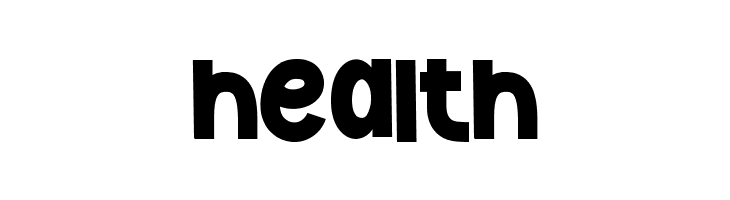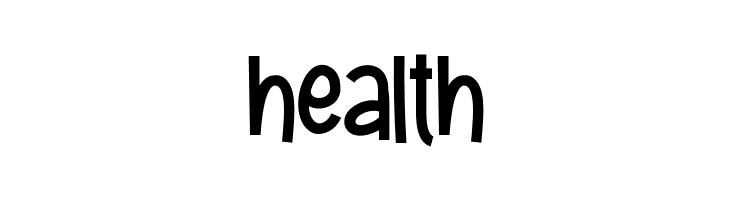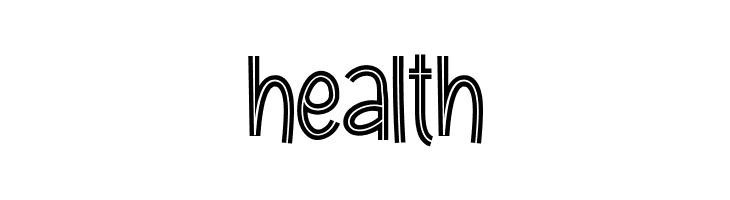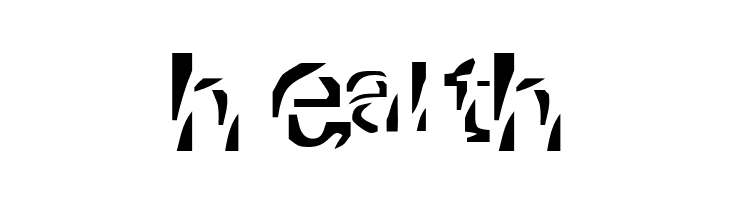
A whimsical and ornate font with curly, decorative letterforms.
A playful, bold font with rounded, bubble-like characters.
A playful and bold font with rounded edges and uniform strokes.
A playful and decorative font with whimsical patterns and textures.
A playful, hand-drawn font with bold strokes and a whimsical style.
A playful, inline decorative font with a bold and dynamic style.
A playful and whimsical font with rounded, bold letterforms.
A playful, hand-drawn script font with a whimsical and lively style.
A bold, fragmented font with high contrast and sharp, irregular shapes.